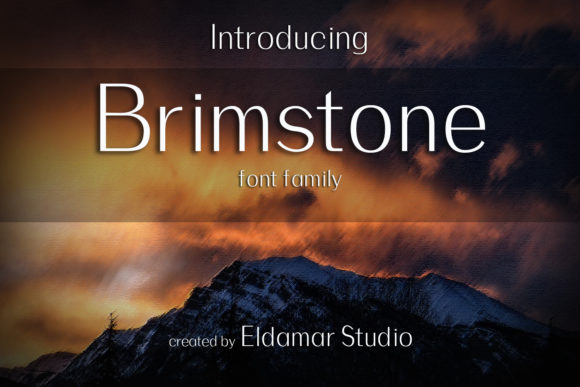
Prepare to be captivated by Brimstone, the font of impeccable poise and captivating elegance. A masterpiece crafted by the ingenious minds at DmDesignsStoreArt, Brimstone is a minimal and neat sans serif font, poised to elevate your design projects to unprecedented heights.
Brimstone possesses an inherent charm that effortlessly lends itself to a vast array of creative endeavors. Whether you seek to craft captivating headlines, design eye-catching posters, or create logos that exude professionalism, Brimstone will prove to be an indispensable tool in your creative arsenal. Its clean lines and graceful curves emanate a sense of sophistication, while its understated presence ensures readability and clarity in any context.
Step into a realm of boundless creativity with Brimstone, the font that empowers you to unleash your imagination. Its versatility knows no bounds, seamlessly adapting to a multitude of design styles and aesthetics. Envision the impact of Brimstone gracing your latest web design, lending an air of sophistication to your e-commerce storefront, or adding a touch of elegance to your social media posts. The possibilities are endless, awaiting your artistic touch to bring them to life.
Brimstone is not merely a font; it's a gateway to a world of design excellence. Experience the transformative power of Brimstone as it breathes life into your projects, captivating your audience with its timeless beauty. Let your creativity flourish, knowing that Brimstone will faithfully convey your message with grace and clarity.
Embrace the allure of Brimstone and elevate your design projects to new heights. Its minimal aesthetic and neat execution will undoubtedly leave a lasting impression on your audience, ensuring that your creations stand out from the crowd.